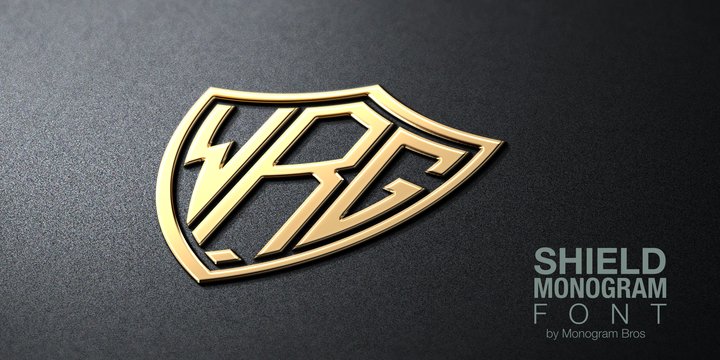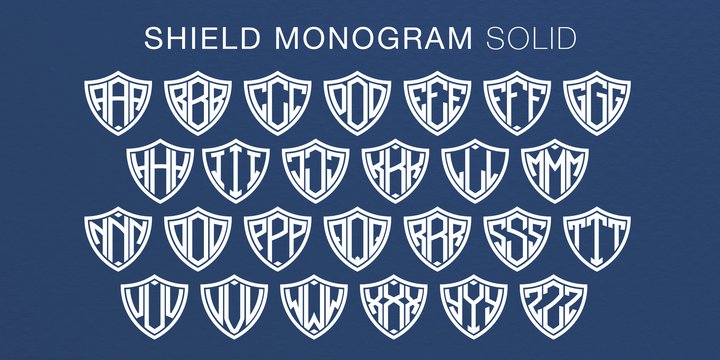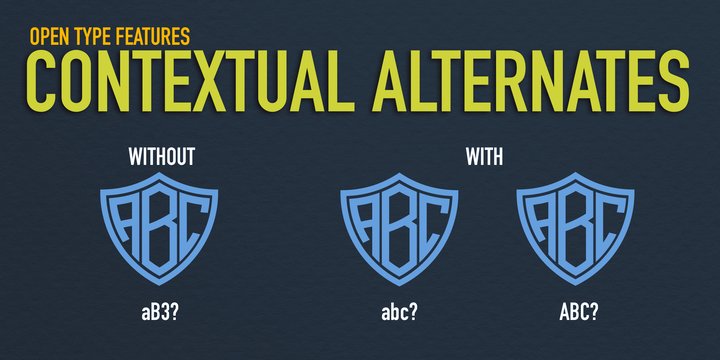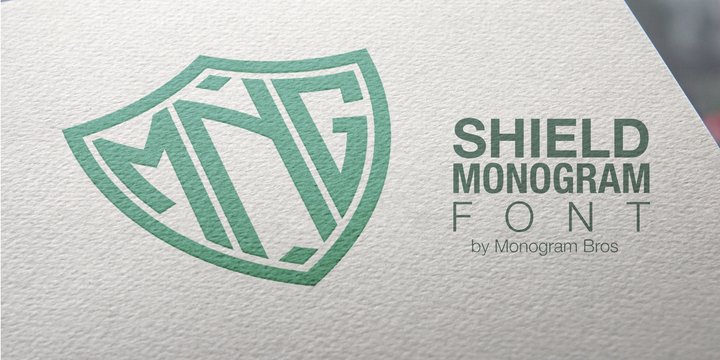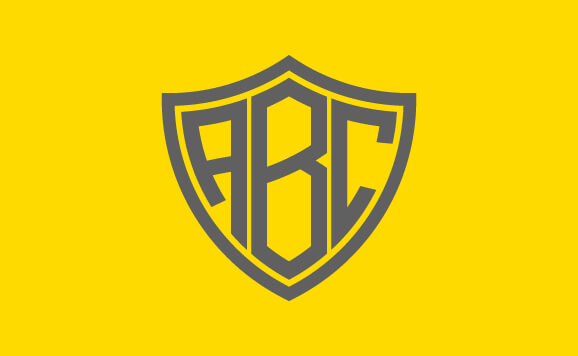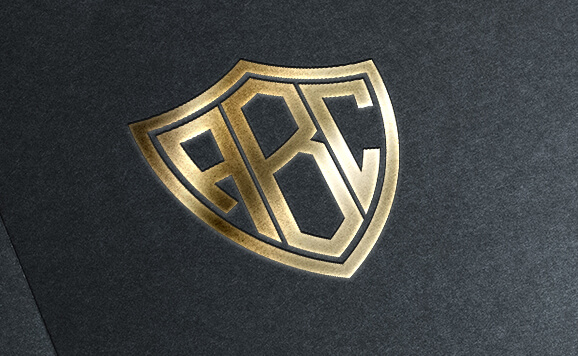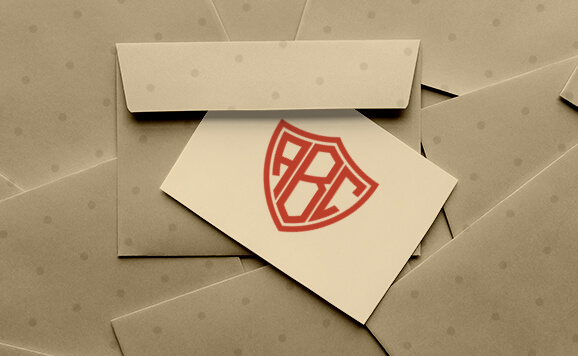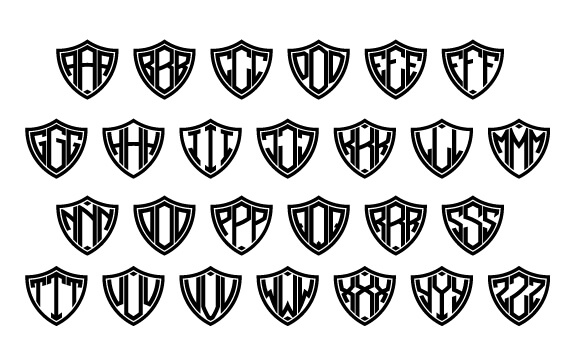
Shield Monogram Font
by MonogramBros
Shield Monogram Font is an exclusive 3-letter monogram font by MonogramBros.
Shield Monogram Font sold as true-type OTF & TTF format files compatible with any modern computing device and software. It comes with latest advanced font features such as Contextual Alternates, allowing to use a single font file for all three left, center and right monogram letters.